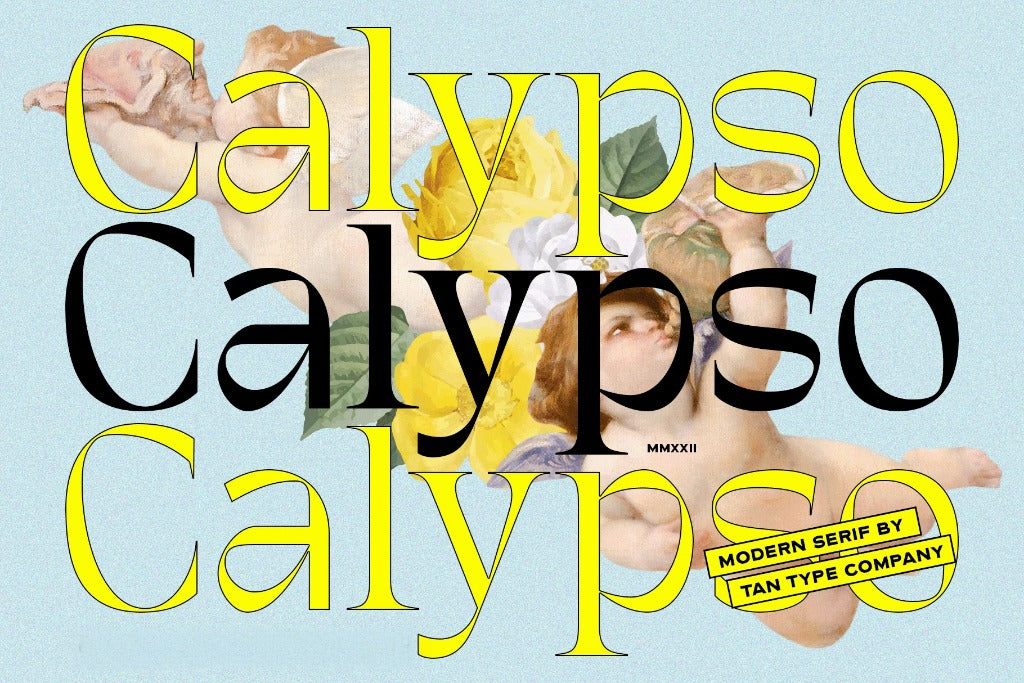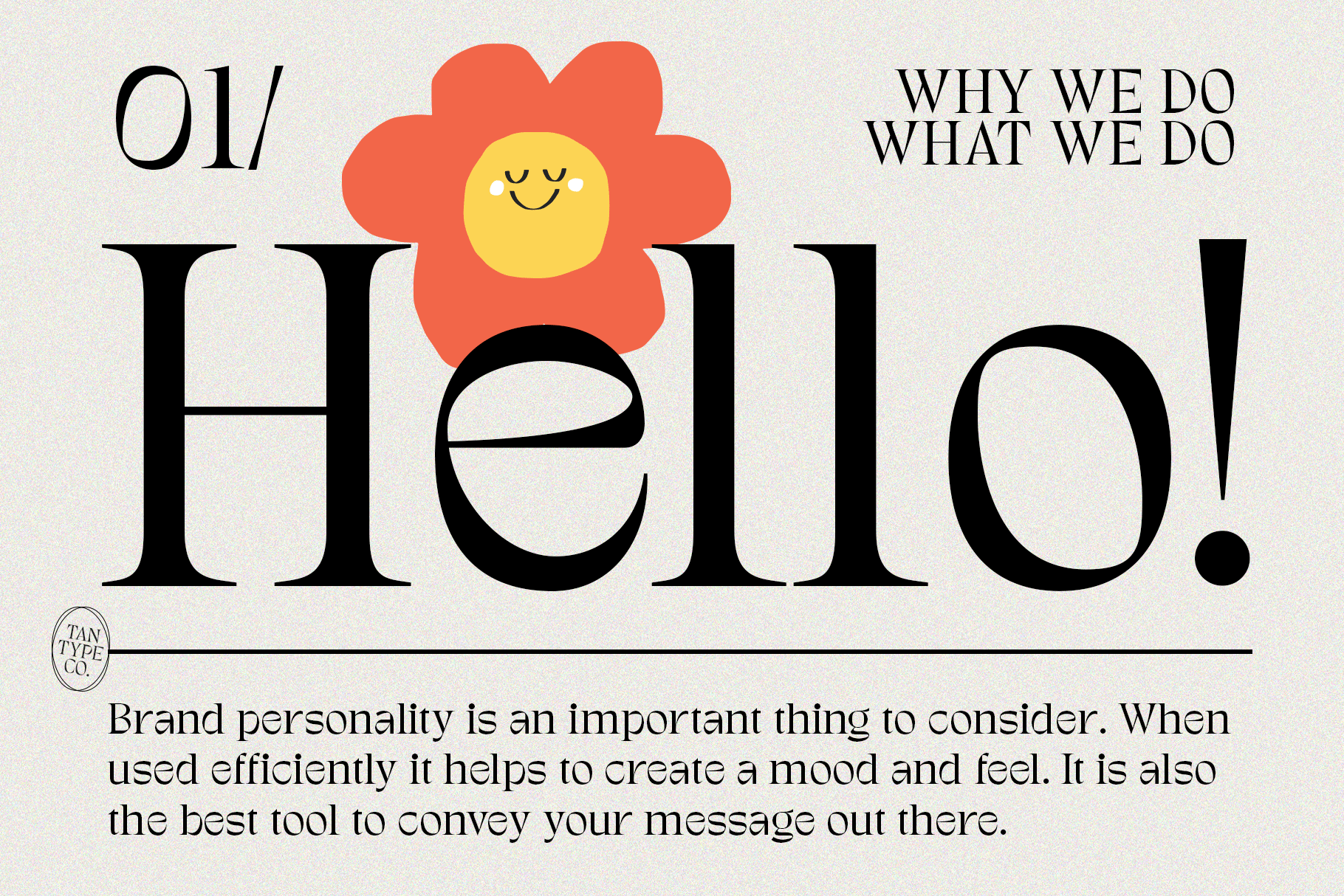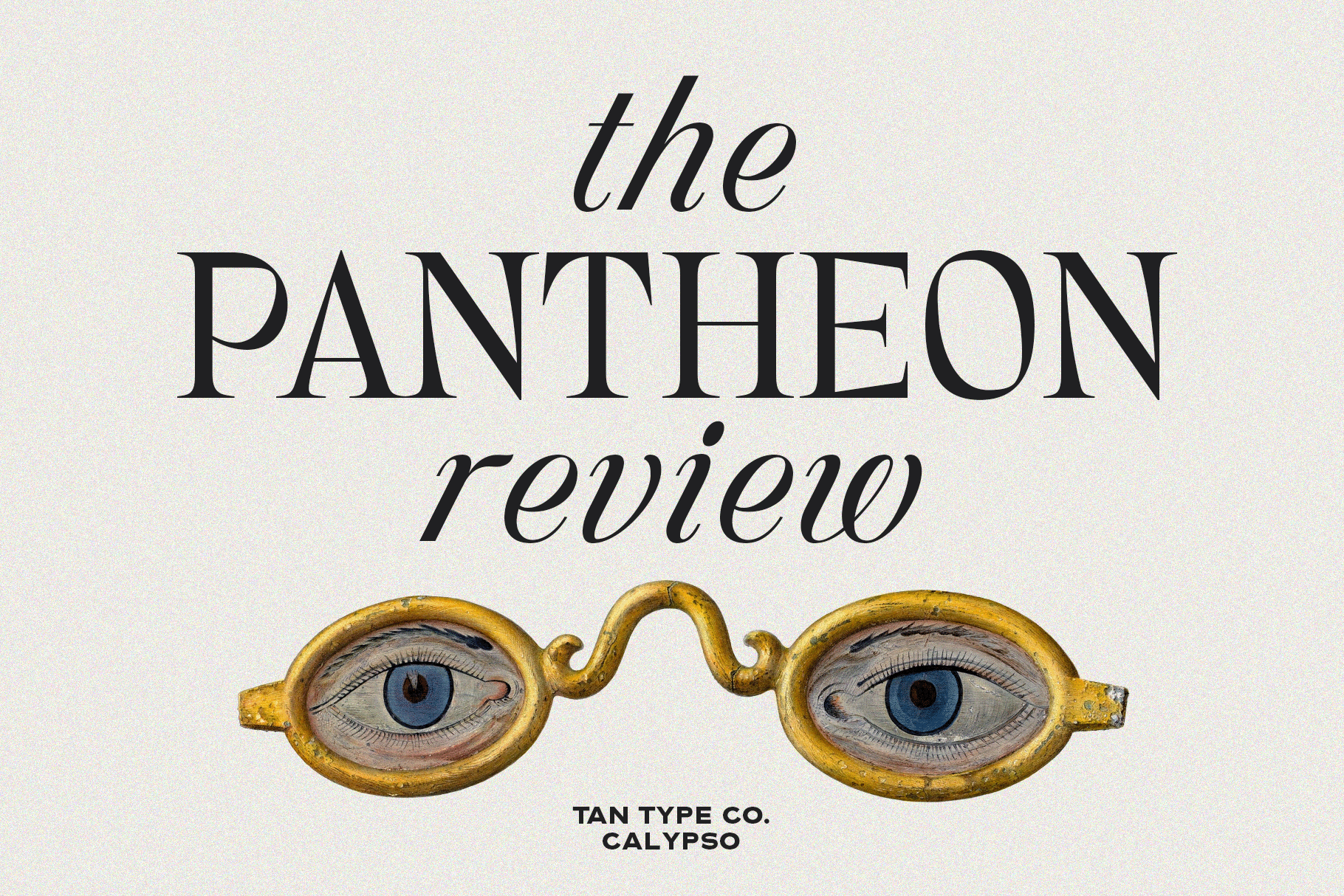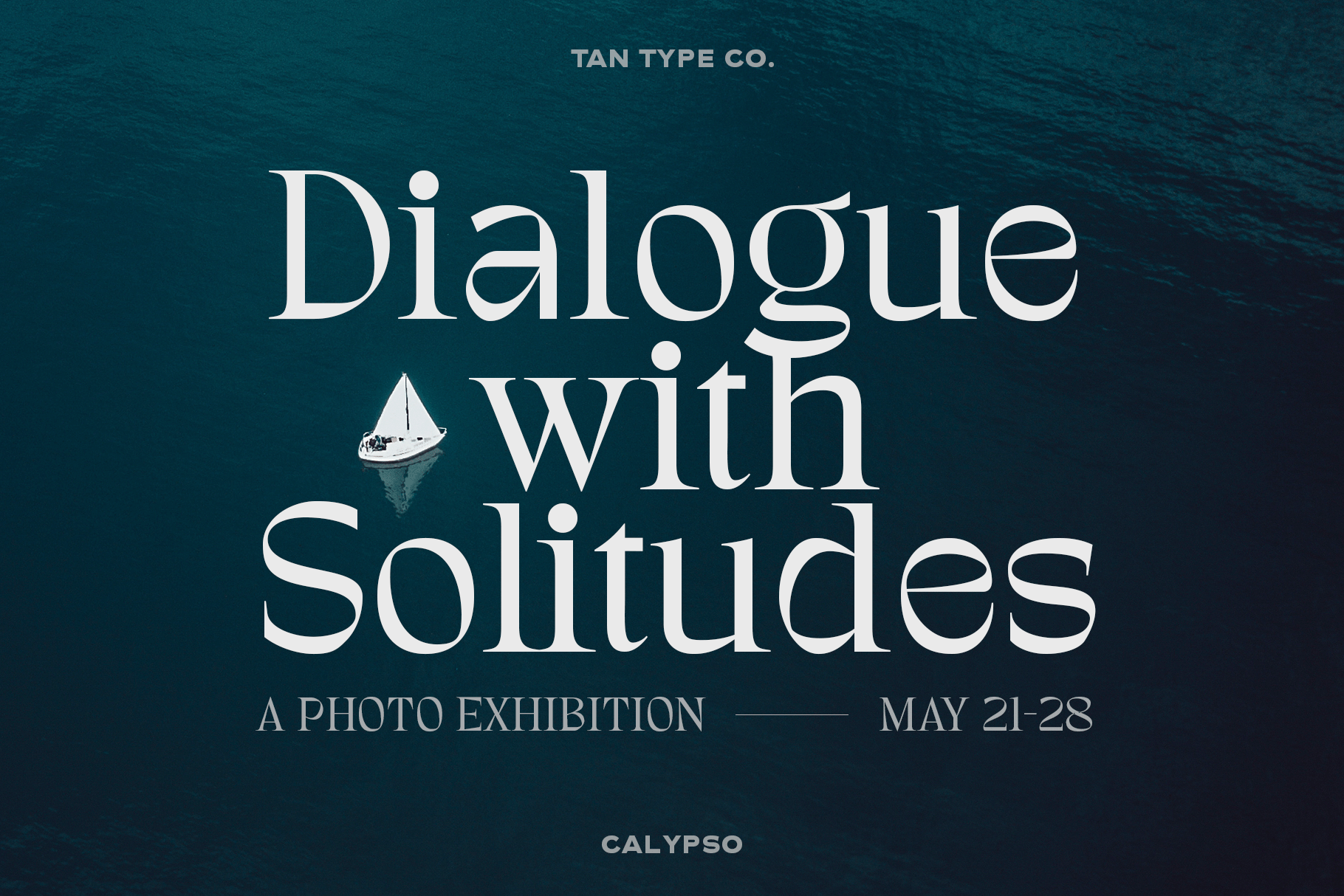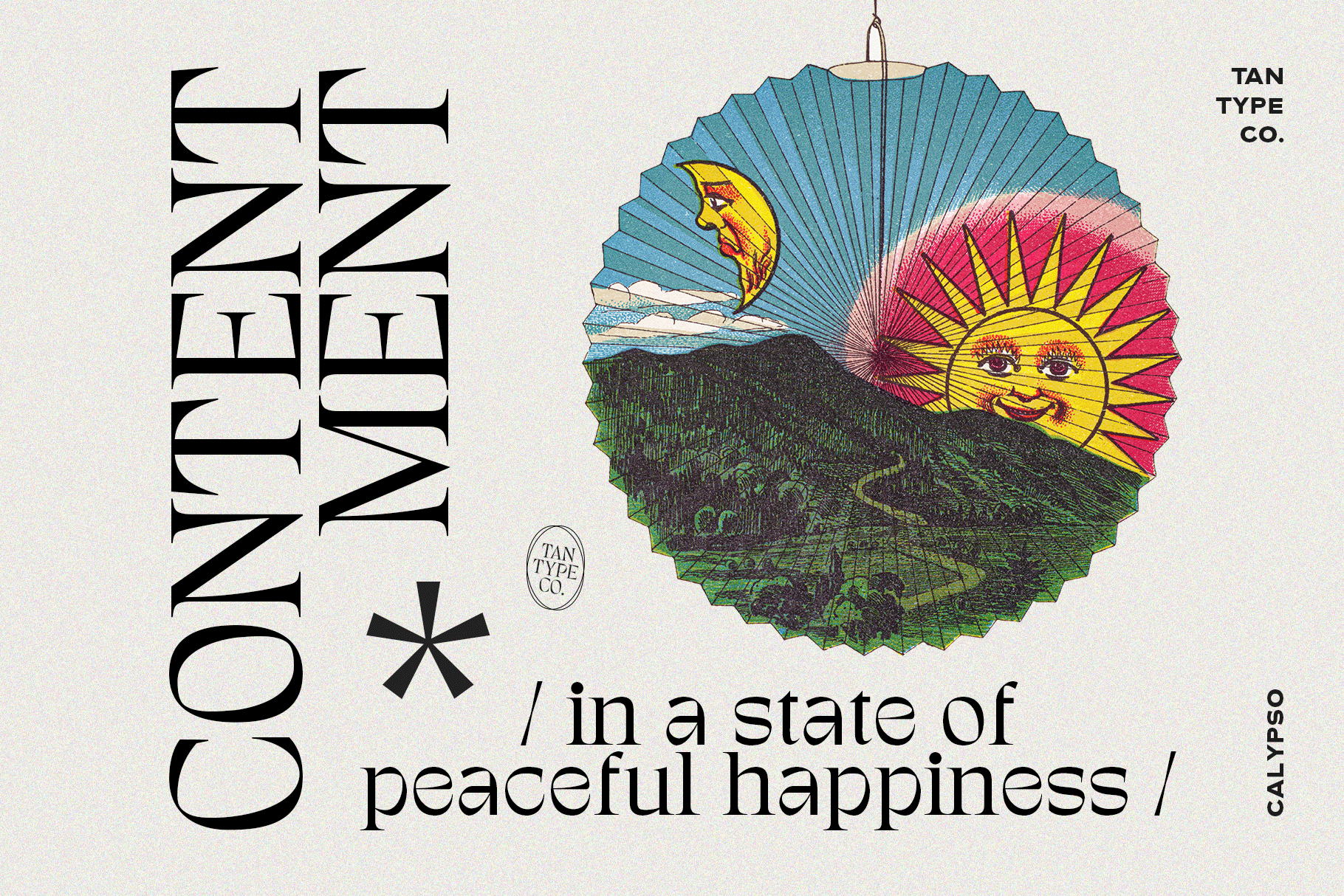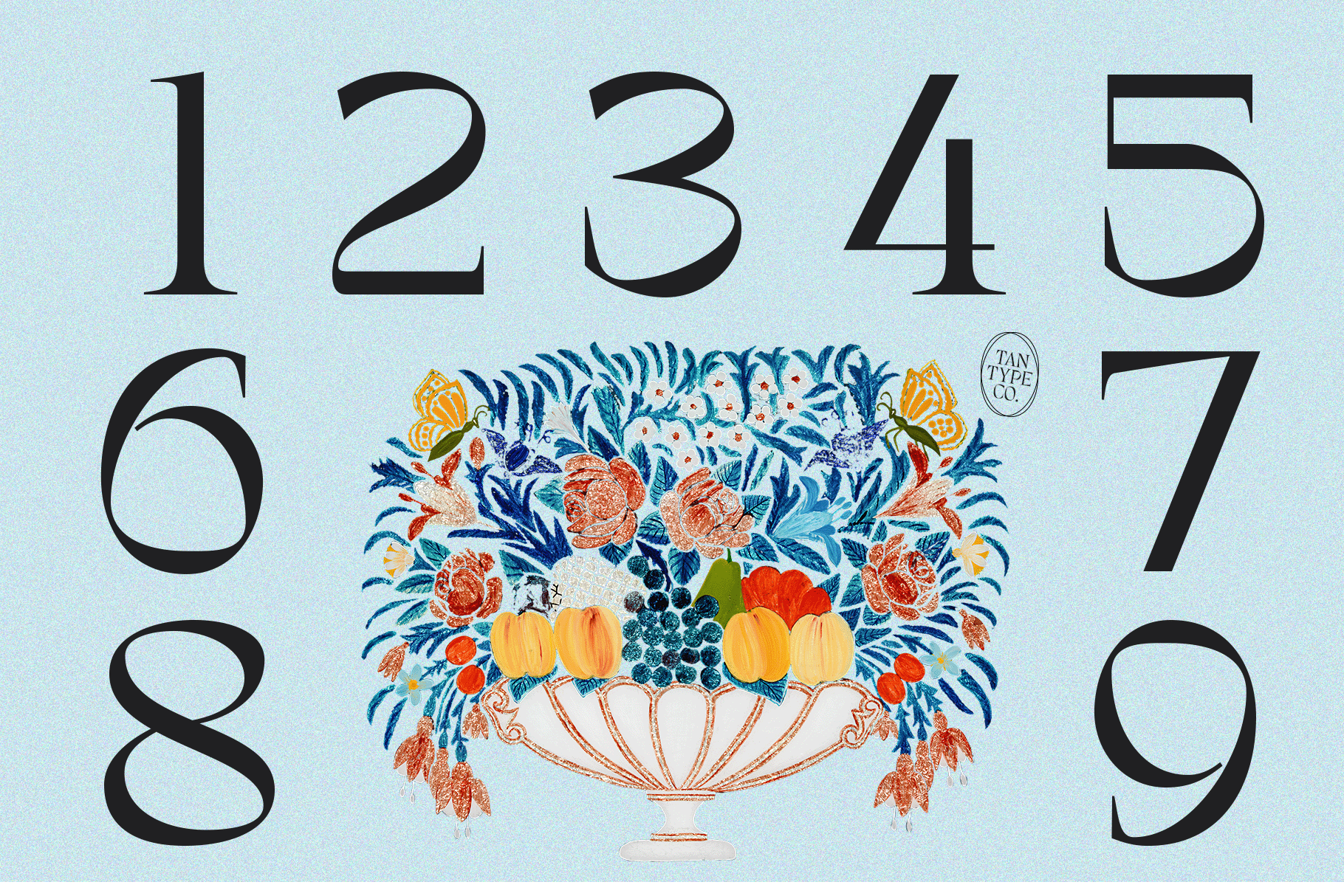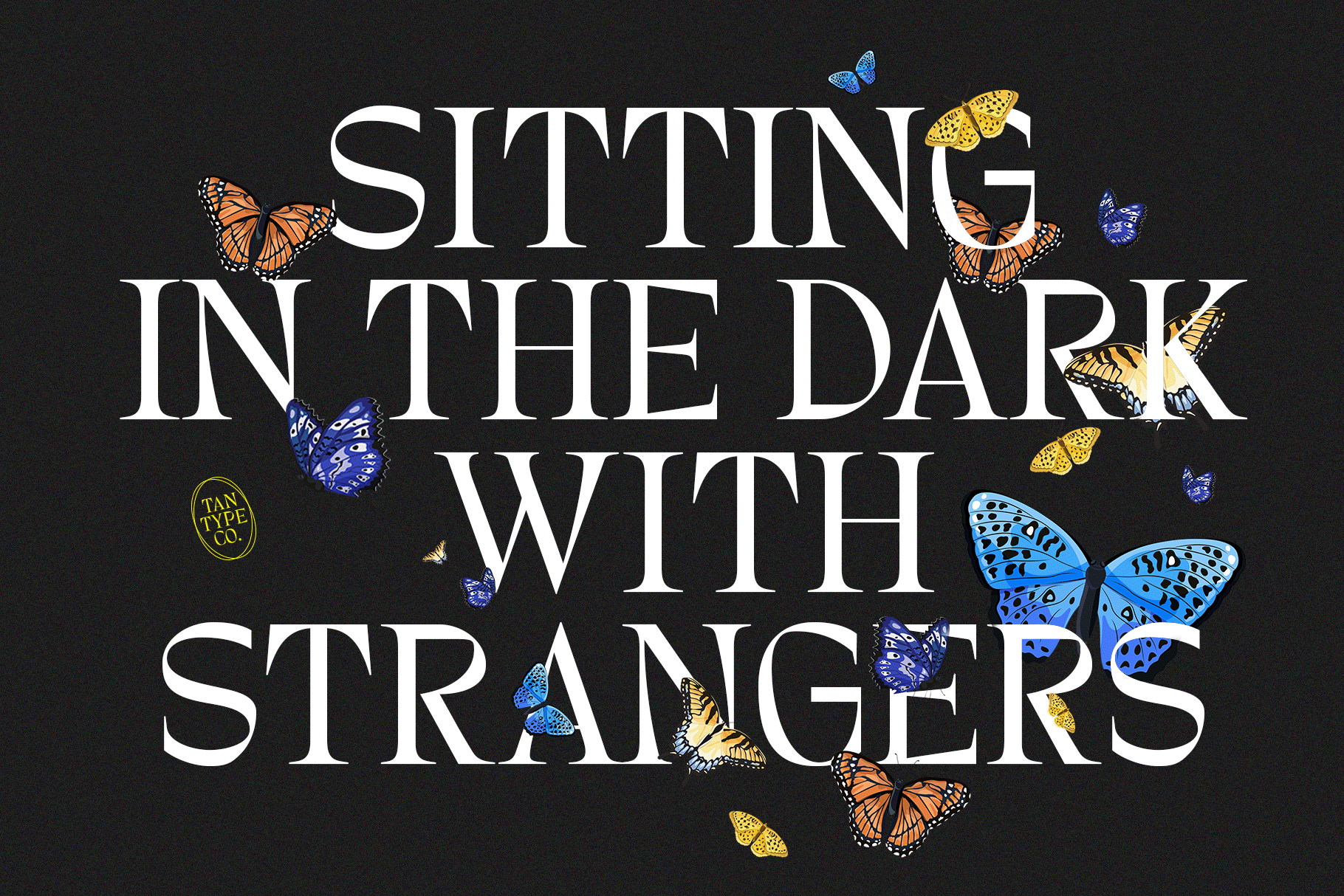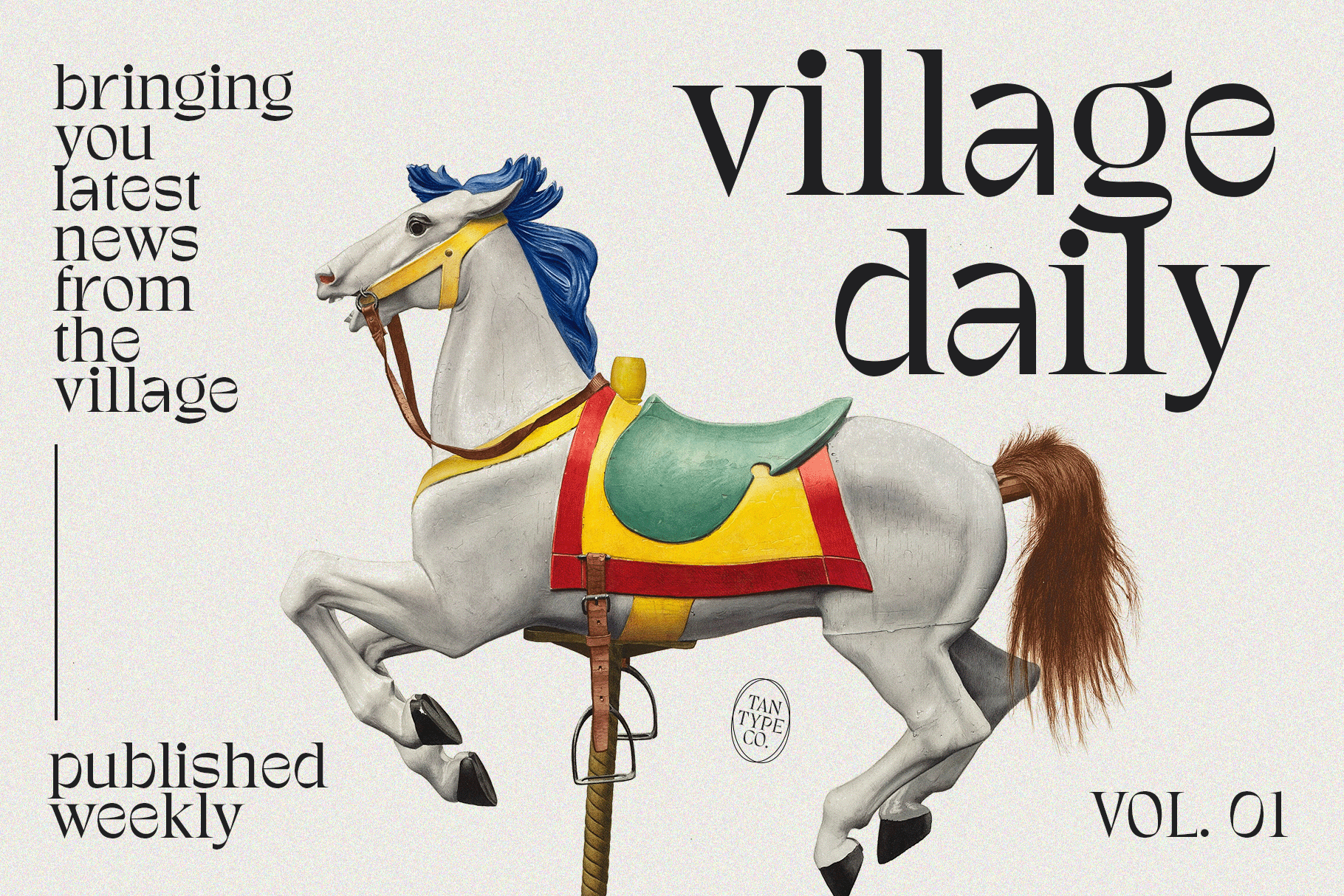
CALYPSO is a vibrant and refined modern serif typeface with high contrast and sculptural elegance. Its graceful curves, sharp terminals, and fluid rhythm bring a contemporary energy to classic serif forms, making it both sophisticated and expressive.